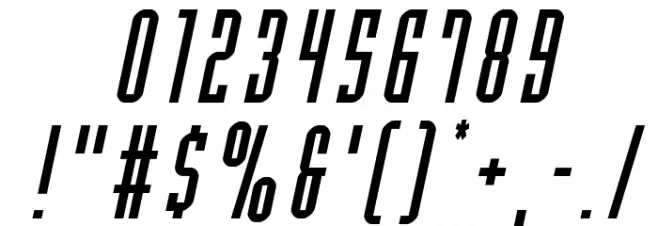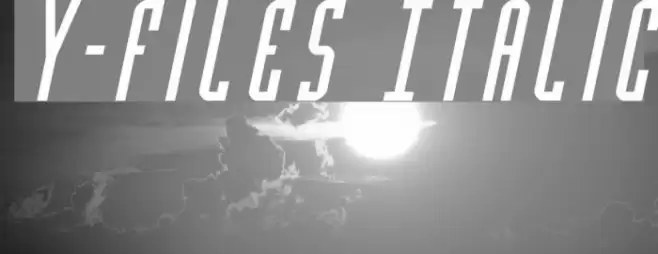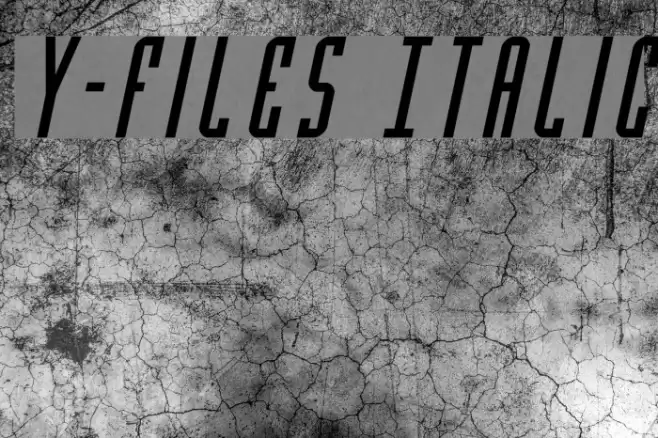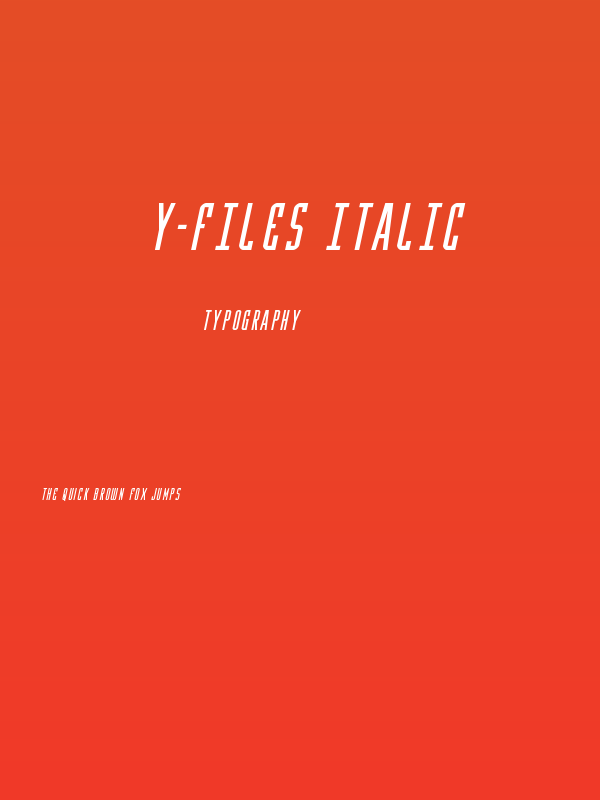
Y-Files Italic Font
Y-Files Italic Description
This font features a distinctive italic style with a modern, sleek appearance. The characters are elongated and slightly condensed, giving them a dynamic and forward-leaning posture. The strokes are consistent in thickness, providing a uniform look across all characters. The uppercase and lowercase letters maintain a cohesive design, with sharp angles and clean lines. The numerals and special characters complement the alphabet with similar stylistic elements, ensuring a harmonious overall appearance. This font exudes a sense of speed and efficiency, making it suitable for contemporary design projects.
| Use Case | Logos, Headlines, Branding |
| Proposed Projects | Ideal for branding, sports team logos, automotive designs, and dynamic advertising materials. |